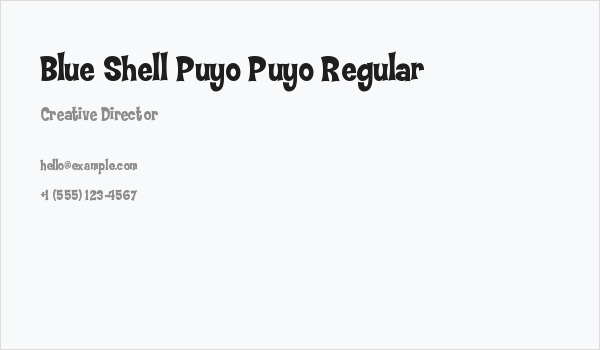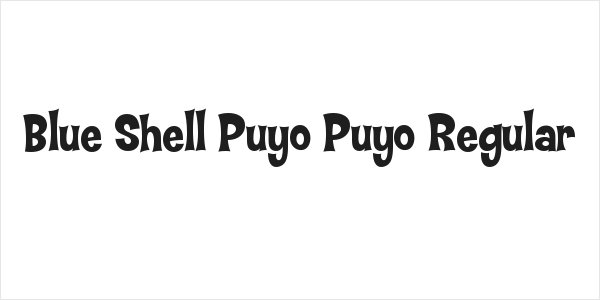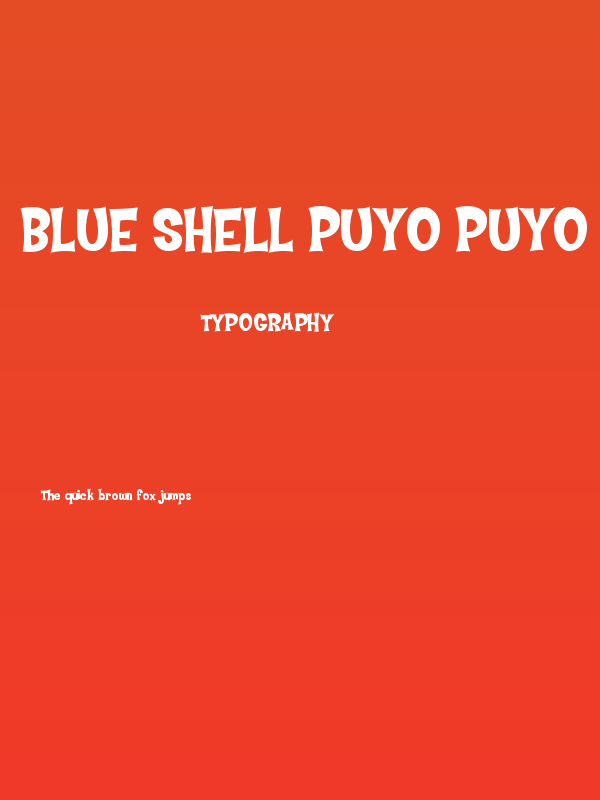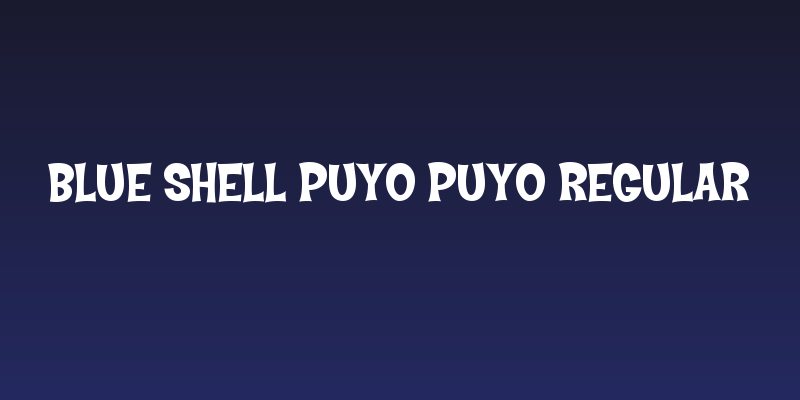
Blue Shell Puyo Puyo Regular Font
Blue Shell Puyo Puyo Regular Description
This font features a playful and whimsical design with bold, exaggerated curves and a lively personality. The letters are characterized by their thick strokes and slightly uneven edges, giving them a hand-drawn appearance. The uppercase letters are robust and commanding, while the lowercase letters maintain a consistent style with a touch of flair. The numbers and special characters follow the same bold and dynamic aesthetic, making them stand out. This font is perfect for projects that require a fun and energetic vibe, such as children's books, playful branding, or creative posters.
| Proposed Projects | Ideal for children's books, playful branding, creative posters, and whimsical designs. |